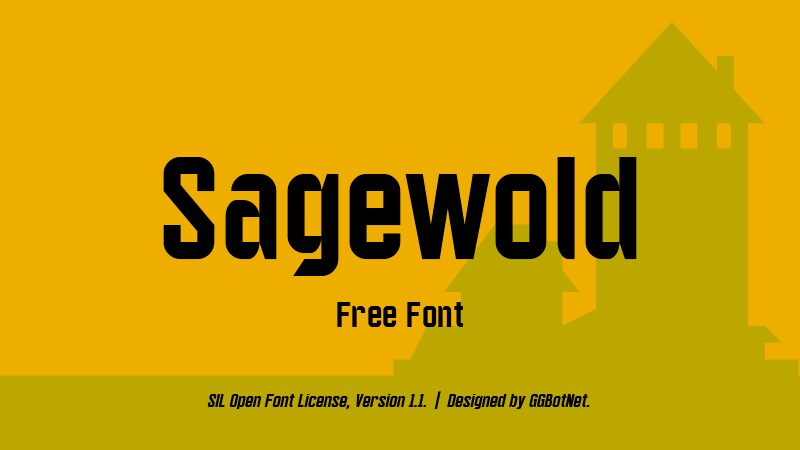
Sagewold
Sagewold font is a contemporary sans serif typeface designed by GGBotNet. Expressive and impactful, the geometric font features exceptionally condensed, yet clean characters. Its futuristic style makes up the structured appearance each letter boasts, increasing legibility and focus when read and pairing well with bold designs.
Use this free techno display font in branding projects or packaging designs whose visual identity must deliver modernity and creativity with every portion of text written or displayed from another angle. Perfect for posters, art cover albums, book covers, video game environments & interfaces, mobile apps, websites/landing pages, social media graphics & advertising boards.